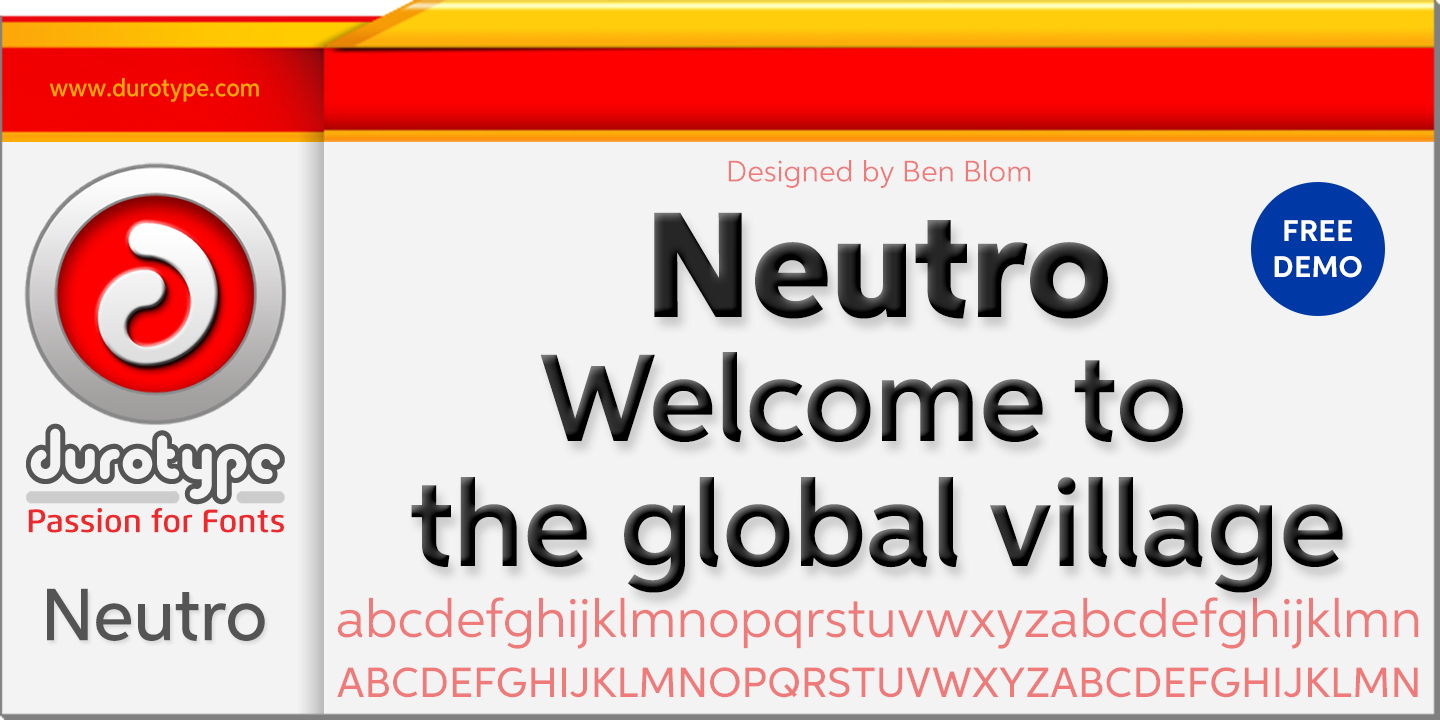
This minimalist typeface is an excellent choice for projects demanding a clean, modern, and highly versatile aesthetic with a focus on absolute clarity. Imagine it forming the crisp backbone of cutting-edge tech interfaces, providing sleek readability for architectural presentations, or adding a sophisticated, understated feel to luxury brand communications. Neutro Font is also perfectly suited for designing streamlined app experiences, crafting precise and impactful corporate logos, or creating compelling headlines for contemporary design and lifestyle publications. Its perfectly balanced forms and unadorned simplicity make it an ideal option for any design seeking to convey efficiency, transparency, and a refined, no-nonsense elegance, such as data dashboards, clean energy branding, or high-concept art exhibition titles.
What makes Neutro Font so exciting? It strips away all unnecessary embellishments, focusing purely on legibility and optimal visual balance. The letterforms are often characterized by uniform stroke widths, open counters, and a harmonious rhythm that creates a sense of calm and order. This font doesn’t just convey text; it presents it with an almost invisible efficiency, allowing the content itself to shine without distraction. It's engineered to perform exceptionally well in both extensive body text and prominent display settings, making it a true workhorse for designers who prioritize functionality and elegant restraint. The inherent neutrality and adaptable nature of its character shapes make it particularly effective for brands that champion clarity, innovation, and a universally appealing, timelessly modern identity.
The Neutro Font family typically offers a comprehensive range of weights and styles, providing extensive flexibility for designers to build complete and cohesive typographic systems. You can expect to find a broad spectrum of options, including Thin, Light, Regular, Medium, Bold, and often an Extra Bold or Black weight, along with corresponding italic versions. Each weight is meticulously designed to maintain the font's core characteristics while offering distinct visual impacts, allowing for a precise and nuanced typographic hierarchy. These variations enable designers to create sophisticated and highly functional text layouts, effectively differentiating between headlines, subheadings, and body text with unparalleled clarity and elegance. The extensive family ensures that Neutro Font can be the singular typeface for an entire brand system, guaranteeing visual consistency and a polished, professional appearance across all mediums.
Whether you're developing a groundbreaking digital platform, building a new corporate identity for an innovative enterprise, or simply need a typeface that speaks with quiet confidence and modern elegance, Neutro Font Free Download is an exceptional choice. Its refined design and broad versatility will ensure your message is always delivered with utmost clarity and sophisticated purpose.